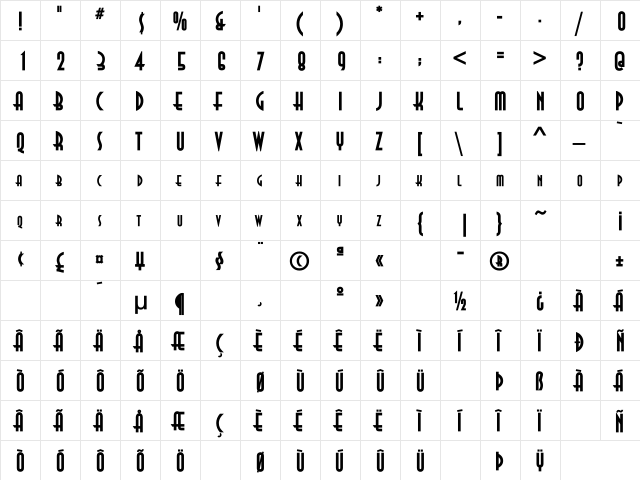
Asia-BO Regular Font Preview
Asia-BO Regular
Asia-BO Regular Font Details
Design Context for Asia-BO Typeface
Asia-BO is a composed and adaptable typeface that performs quietly and consistently across a wide range of design contexts.